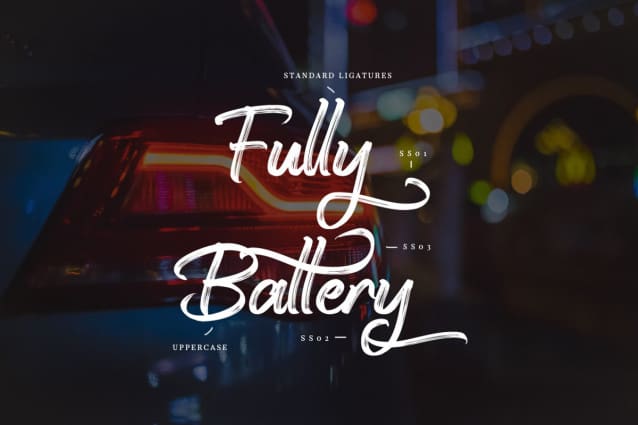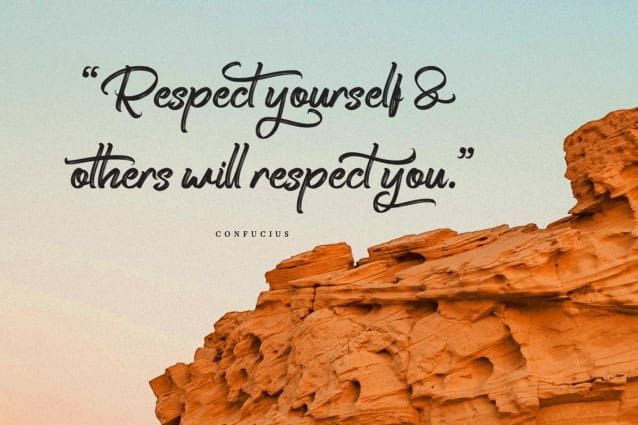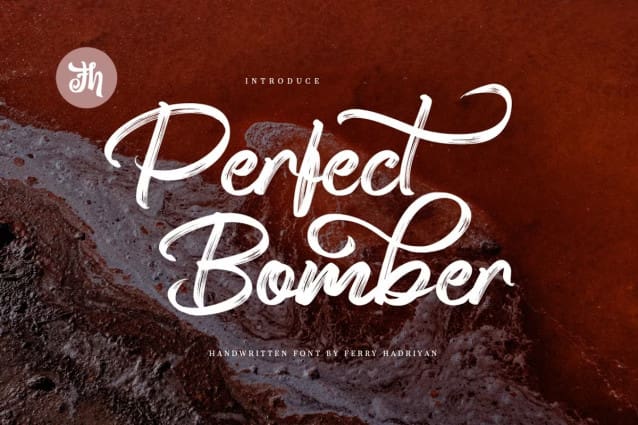
Perfect Bomber Font
Perfect Bomber Font is script font with handlettering vintage brush style, with OpenType feature include of the font. Suitable for design, element design, event, logo, and awesome work, etc…